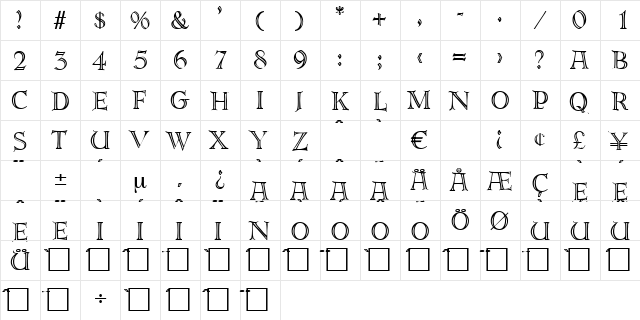
Akropolis Regular
Design Context for Akropolis Typeface
Akropolis is a composed and adaptable typeface that performs quietly and consistently across a wide range of design contexts.